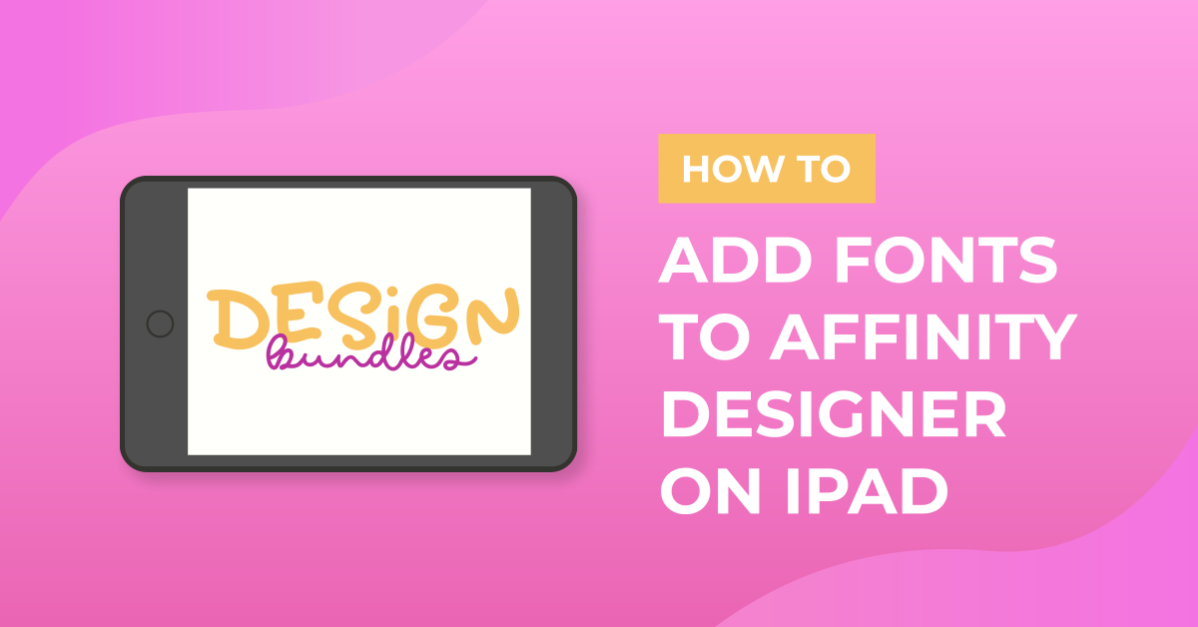
How to Add Fonts to Affinity Designer on iPad
Learn how to add fonts to the Affinity Designer app on iPad with this step by step tutorial.
Step 1 - Download and unzip your font.
In this tutorial we are using the Hey Girl font by Angèle Kamp. A feminine font like Hey Girl will be great for this project.
Step 2- Open Affinity Designer
When you open Affinity Designer you will see the main interface. In the top right toolbar click on the Settings icon. It is represented by a small cog.
Affinity Designer Opening Screen
Step 3 - Open Program Preferences
After clicking on the preferences you will see the following screen. Select Fonts from the left hand menu. Here you can see a list of all your currently installed fonts. At the bottom of the list you will see a trash can and a cloud symbol. Click on the cloud.
Affinity Designer iPad Font Panel
Step 4- Choose the font to install from your files
Navigate to the folder where you have your font saved and click on the cloud with the arrow. It will automatically download and install to Affinity Designer then click Done in the bottom right of the screen. This will return you to the opening screen.
Affinity Designer iPad font selection
Using your new font.
From your opening screen either create a new document or open a current one that you want to use your new font on. If you are new to Affinity Designer, find help on creating a new document.
Affinity Designer Opening Screen
Step 1- Open the text tool
Select the text tool from the left menu represented by the letter A in a box and click on the screen where you want your new text to be. Toward the middle left of the screen is a drop down box where you can select your font.
Affinity Designer Text Tool
Step 2 - Selecting your font
You can either scroll through your font list to look for the one you need or you can type the name in the search box at the top. Usually a few letters will narrow it down to the one you want.
Affinity Designer Font Choice
Step 3- Enter Your Text
Using the keyboard, enter the text you desire.
Affinity Designer iPad Typed out font